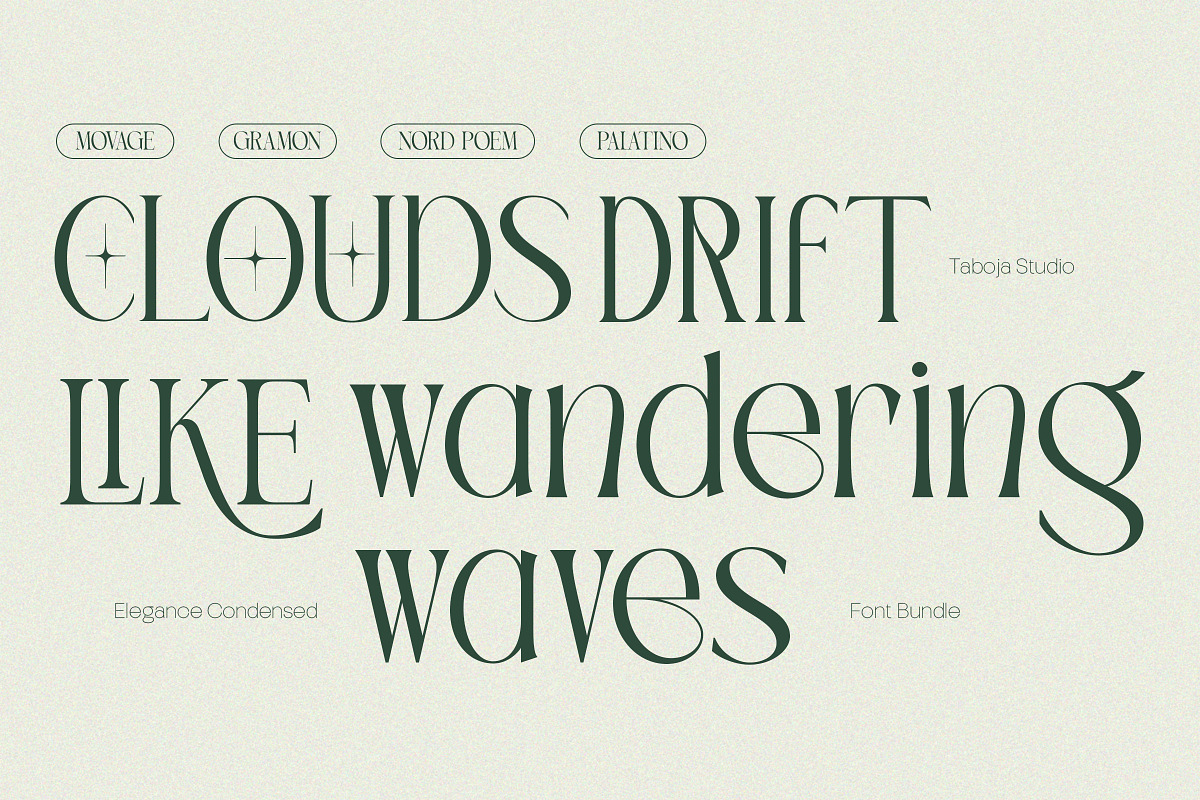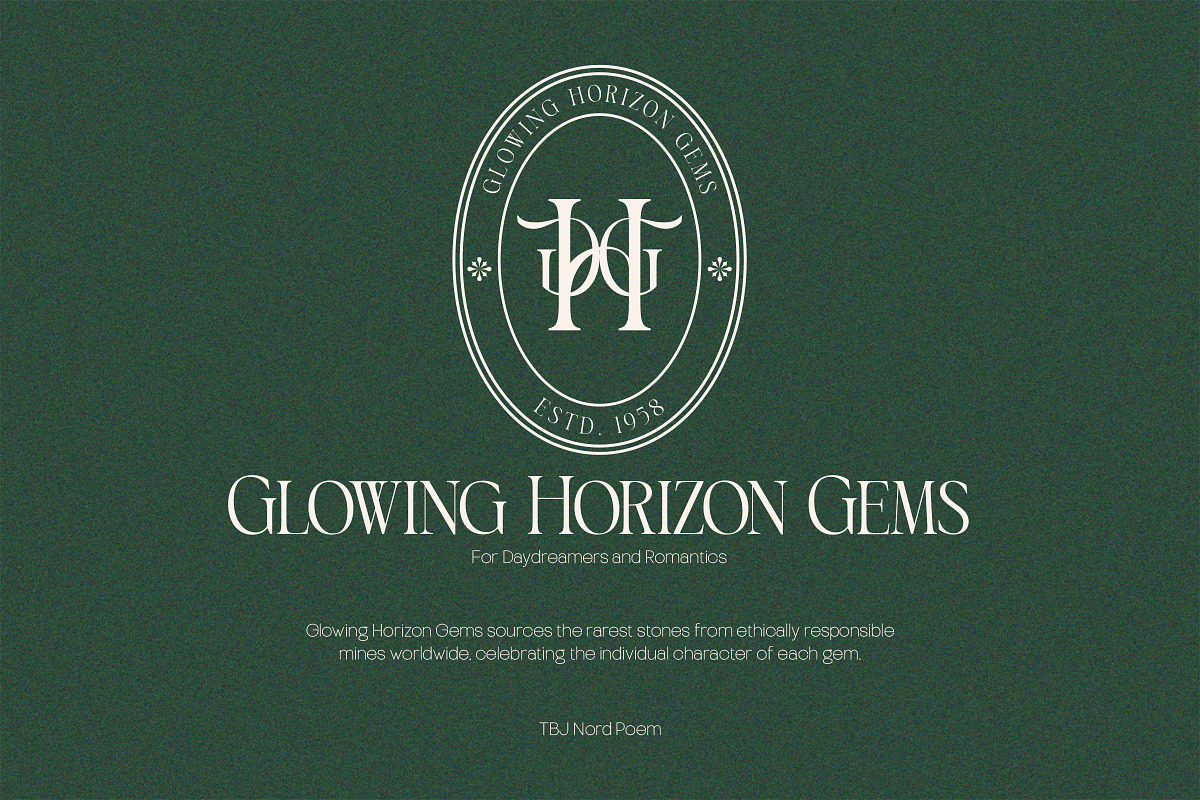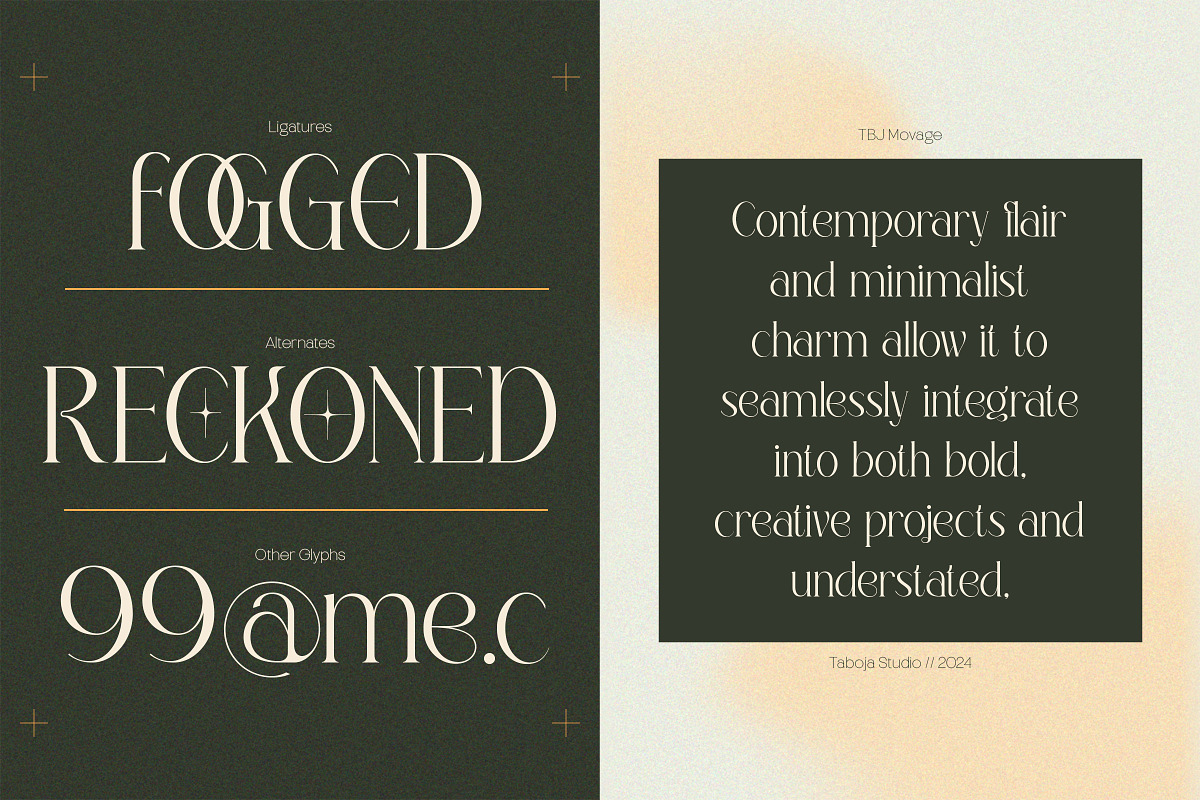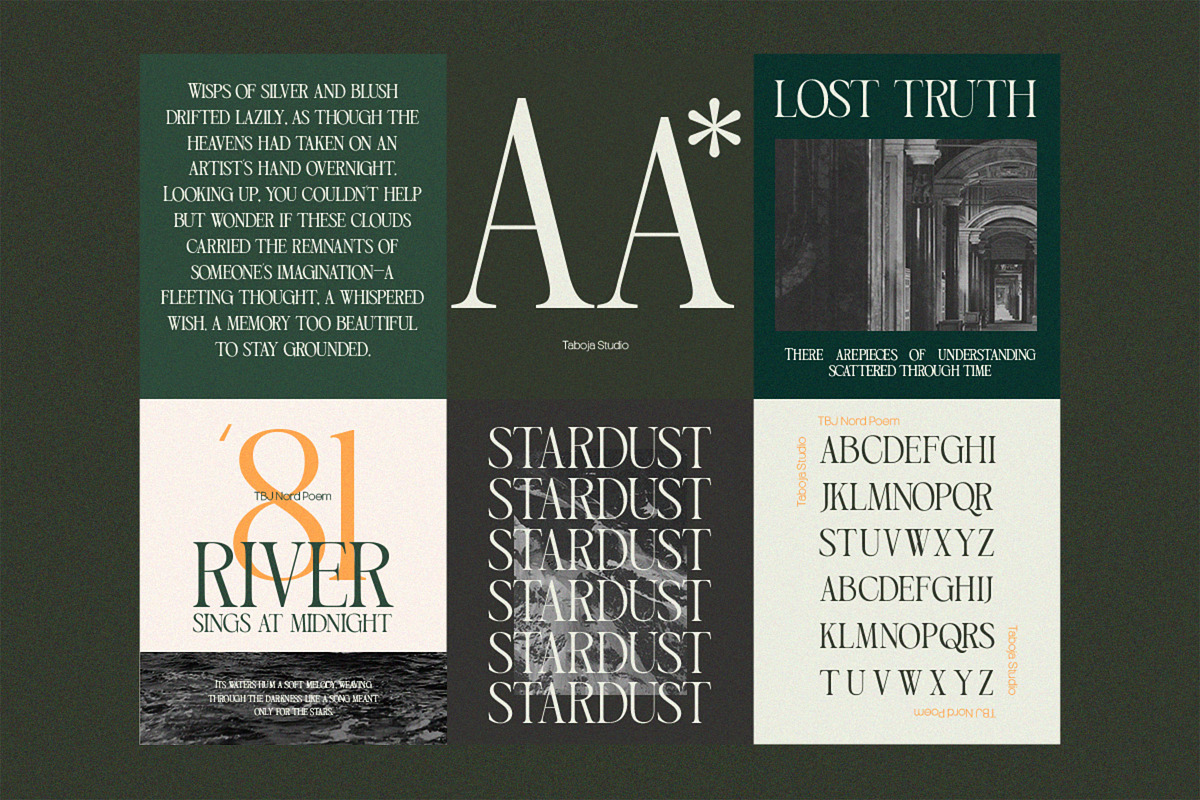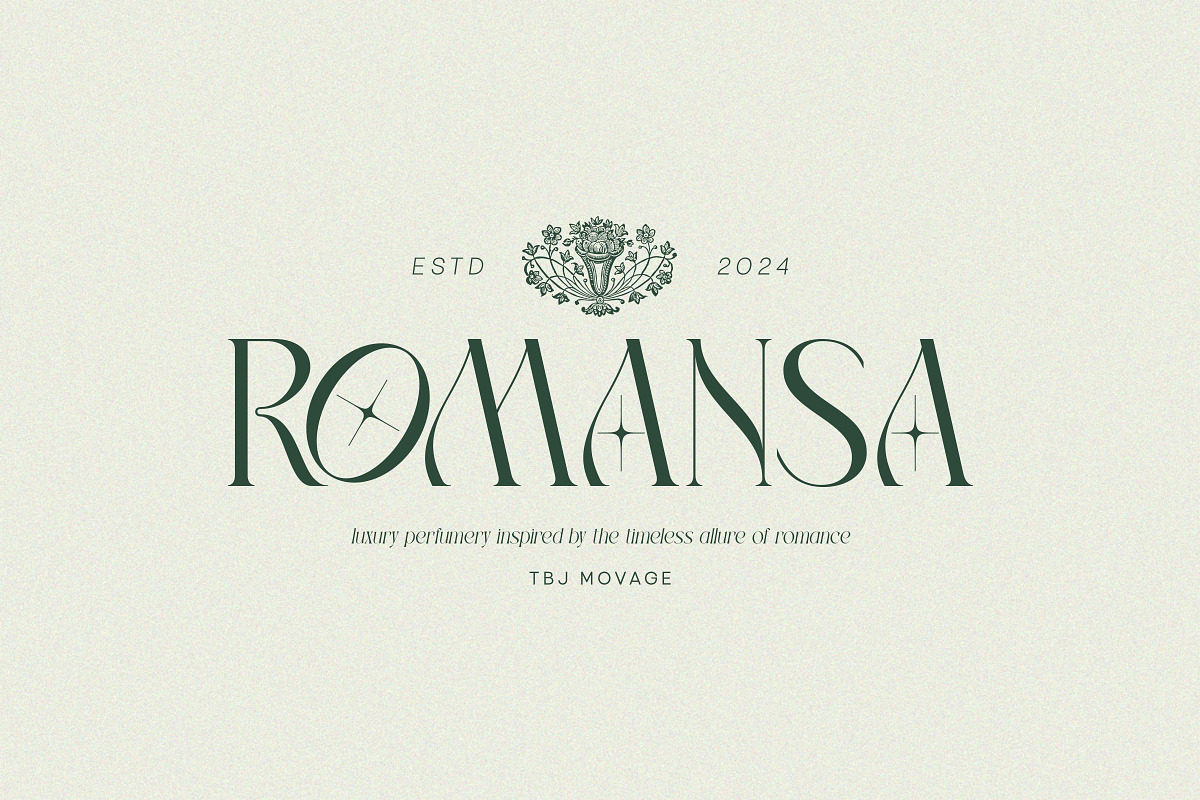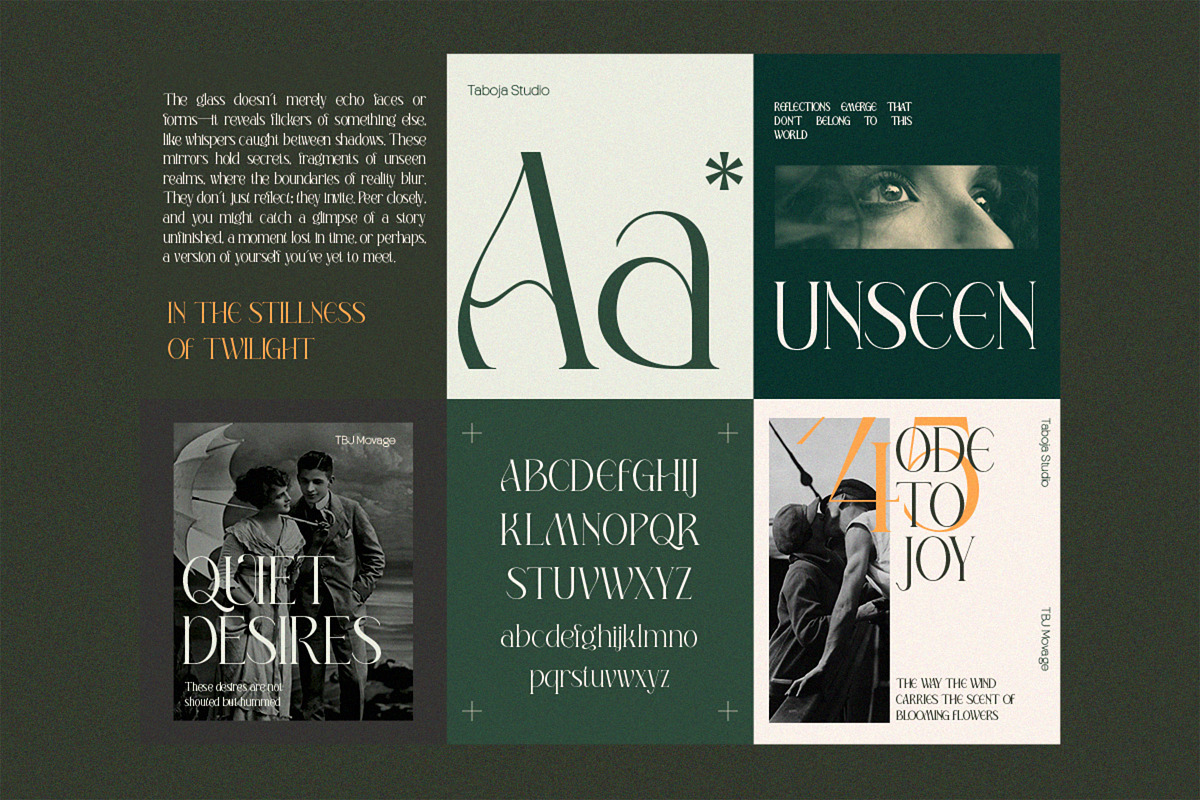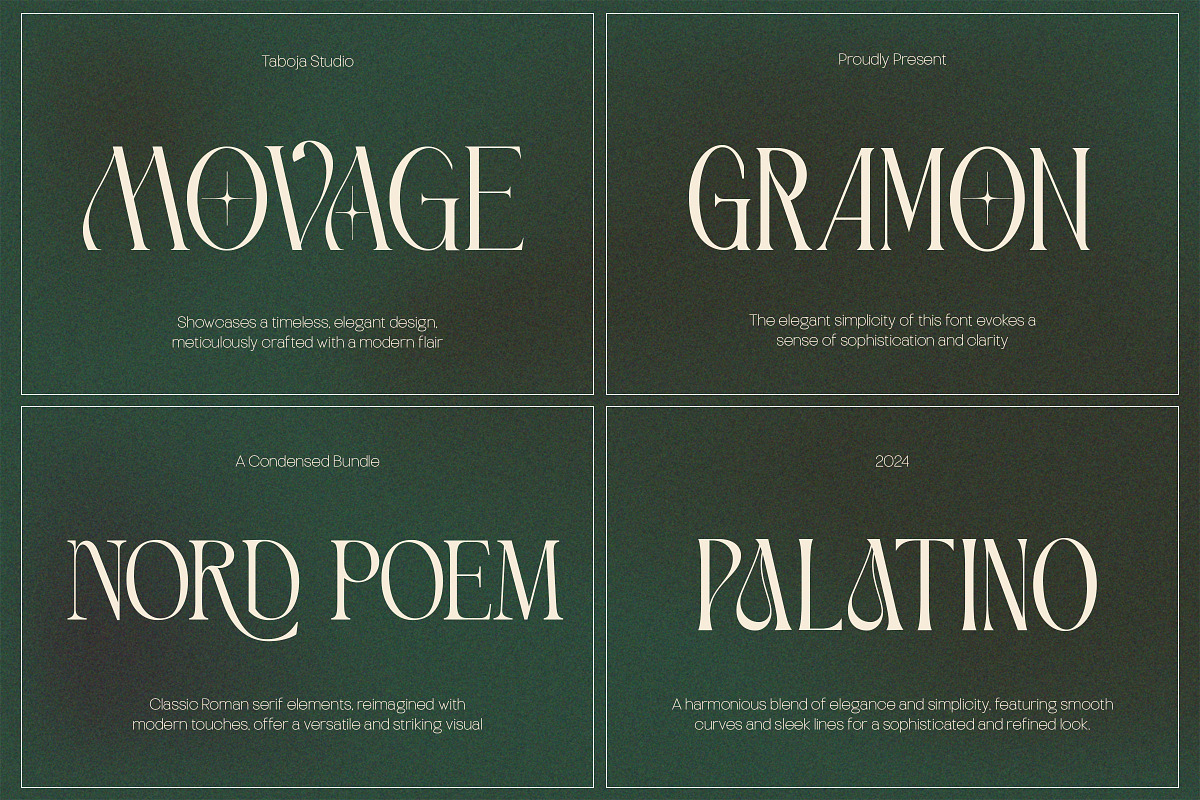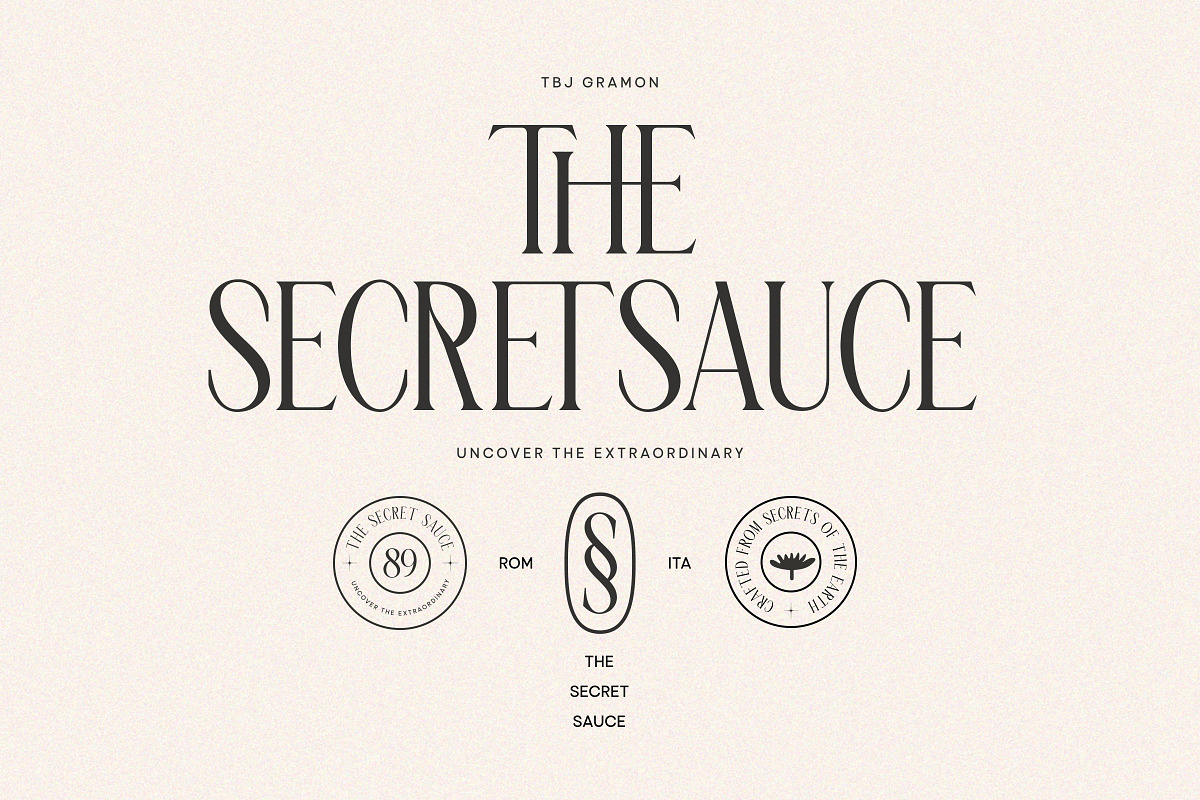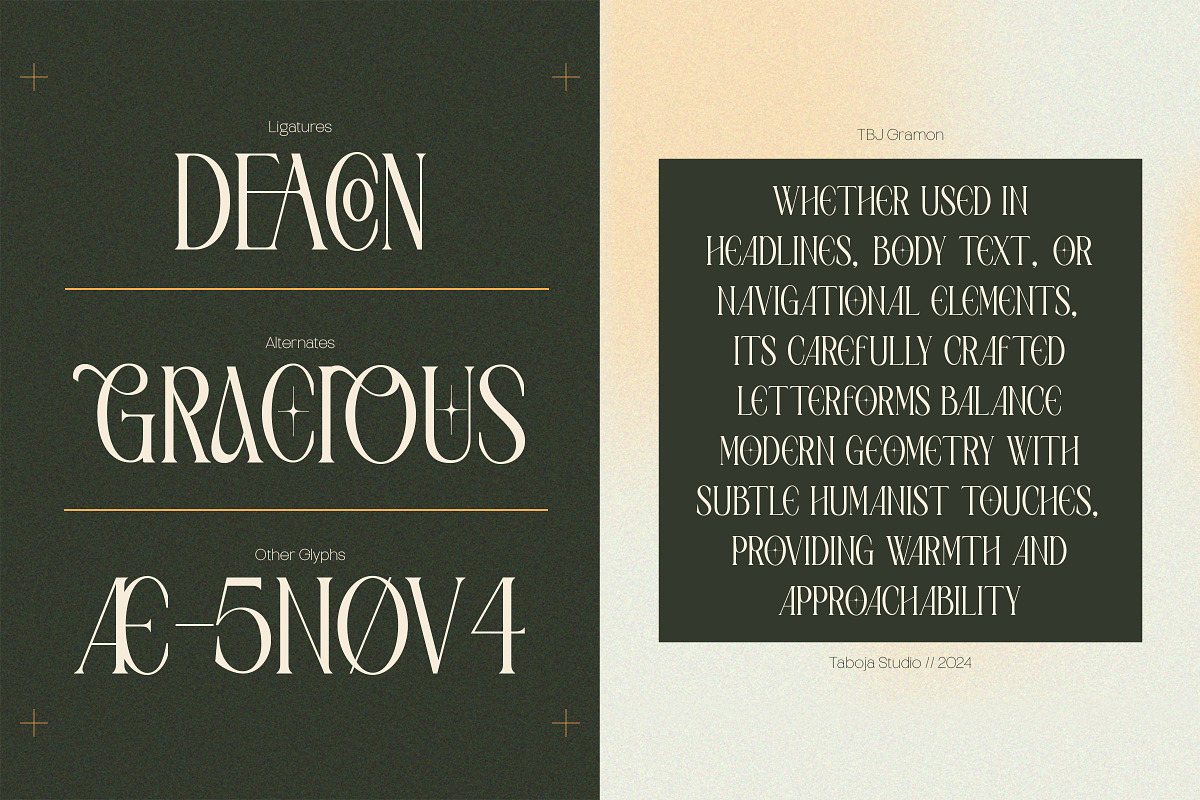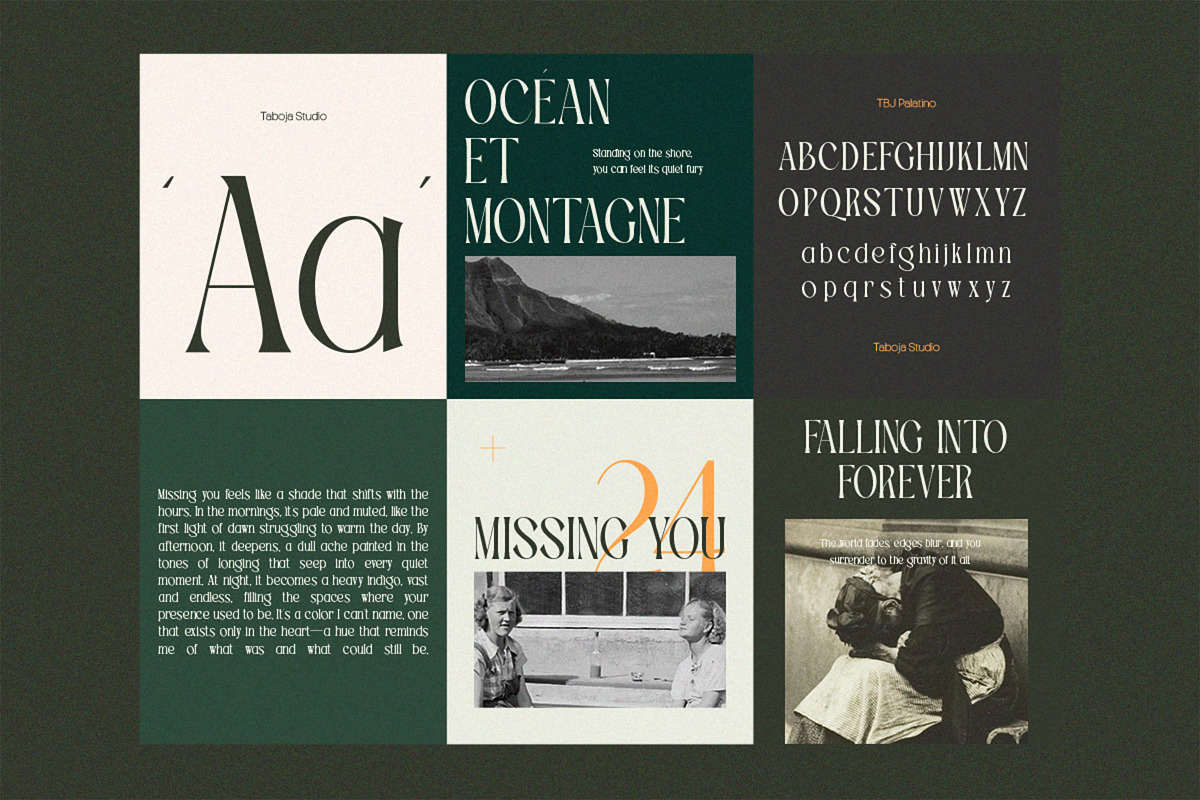
Elegant Condensed Volume 4
Elegant Condensed Volume 4 – The Ultimate Serif Font Bundle for Headlines and Logos Looking for fonts that combine elegance with practicality? Elegant Condensed Volume 4 is your go to serif font bundle, featuring four beautifully crafted condensed serif typefaces designed to elevate your headlines, logos, and branding projects.
What’s Included?
- TBJ Palatino
- TBJ Nord Poem
- TBJ Movage
- TBJ Gramon
Why Choose Elegant Condensed Volume 4?
Perfect for Headlines: The condensed proportions grab attention while saving space. Versatile for Logos: Add a timeless, professional touch to your branding projects. Sophisticated Yet Simple: The fonts are elegant but easy to use, no matter your style. This bundle is built to help your designs stand out, whether you’re working on luxury branding, modern logos, or stunning editorial layouts. Each typeface is designed for maximum readability and impact, making them an essential addition to your font library.